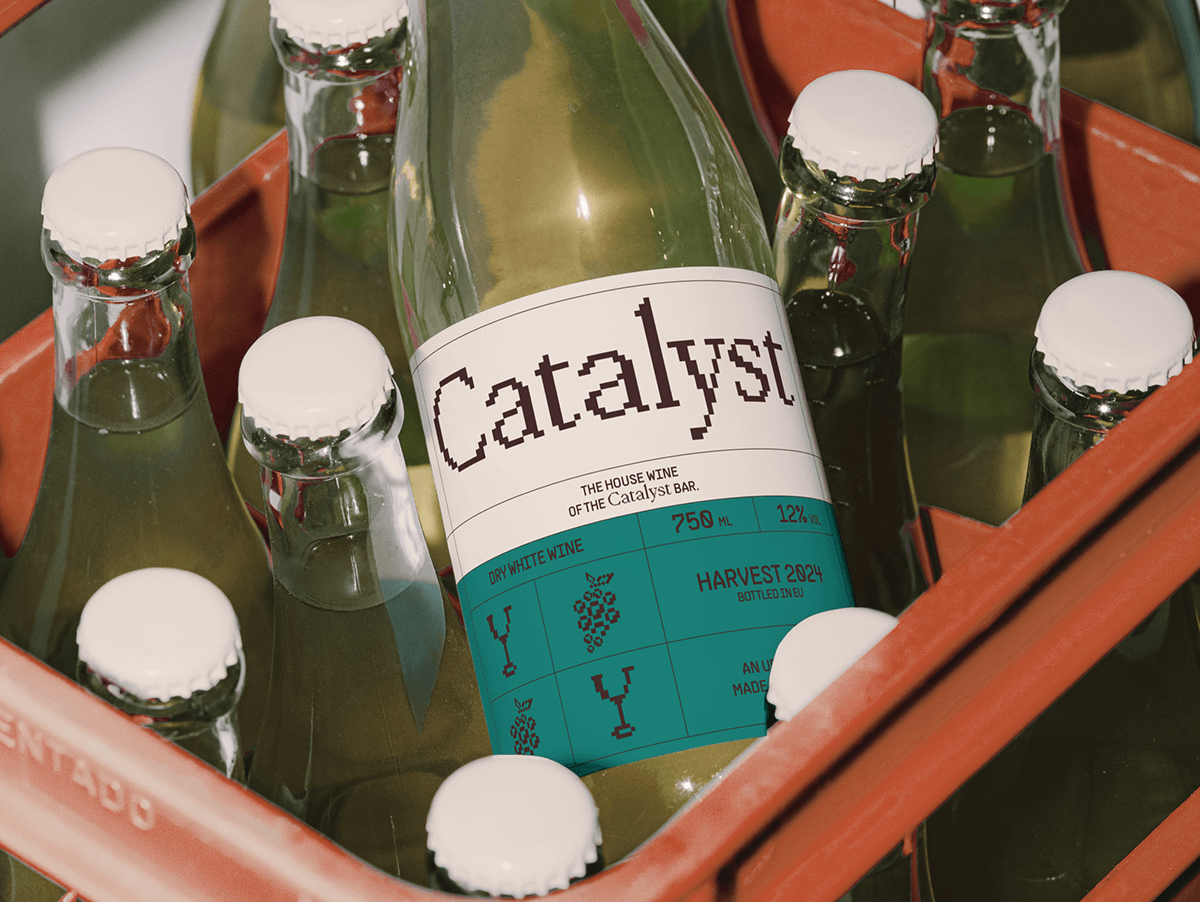
The moment when wine, conversation and space trigger something more. The name refers to a catalyst: an element that accelerates a process without losing its own form. This principle became the foundation of the entire system.
The visual language is built from simple, almost laboratory-like symbols - bottles, glasses, reaction signs - transformed into a modular and repeatable graphic system. These elements form sequences and patterns, balancing order and chance, structure and spontaneity. The color palette is restrained but intentional. Strong contrasts create tension, while color accents act like impulses - brief, intense and memorable. Typography remains functional and reduced, treated as a carrier of information rather than decoration.
The project spans a complete brand system: wine labels, menus, printed matter, objects, spatial communication and exhibition elements. Each touchpoint functions as part of a single process - consistent, yet flexible.